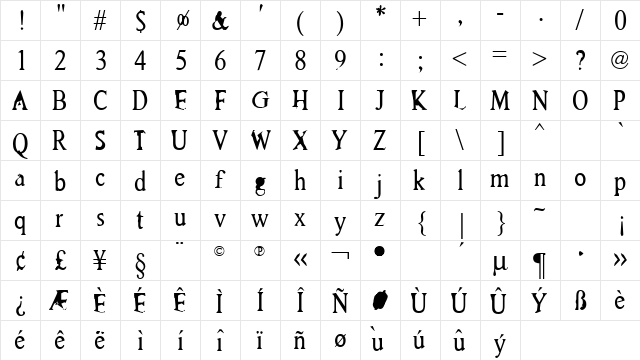
Collide 10v Regular
Design Context for Collide 10v Typeface
Collide 10v offers clean, dependable letterforms without strong stylistic allegiance, making it a practical choice for designers who need flexibility.
Pro Tip: Use Collide 10v in both headline and body roles to test its range before committing to a single application.